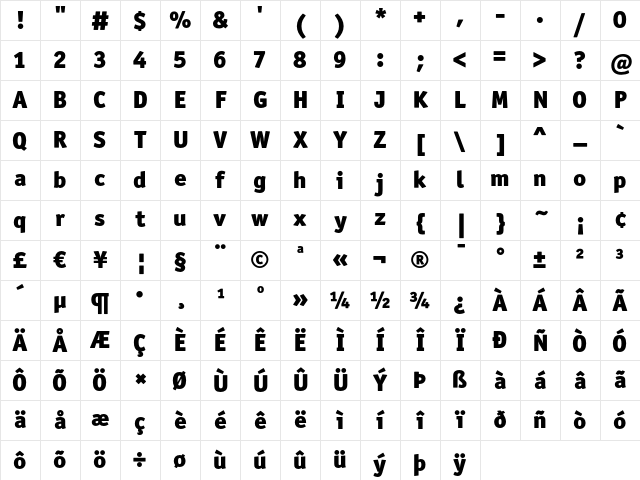
OfficinaSanITC Regular Free Font
OfficinaSanITC Regular
Complete OfficinaSanITC Regular glyph index. Displaying only characters natively supported by OfficinaSanITC Regular font.
Design Context for OfficinaSanITC
OfficinaSanITC is a composed and adaptable typeface that performs quietly and consistently across a wide range of design contexts.
Pro Tip: Use OfficinaSanITC in both headline and body roles to test its range before committing to a single application.